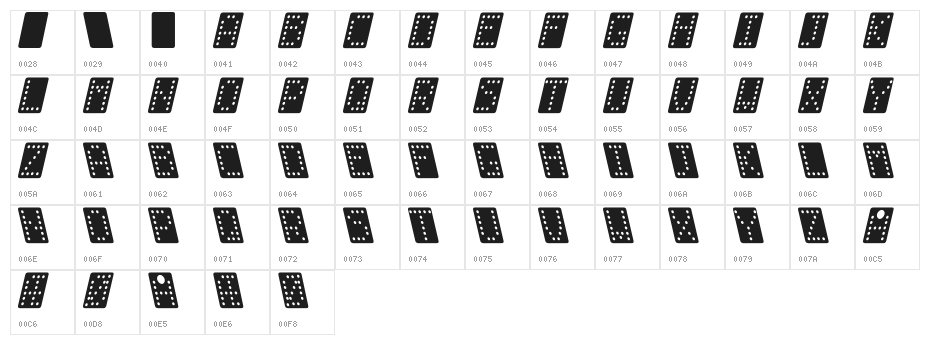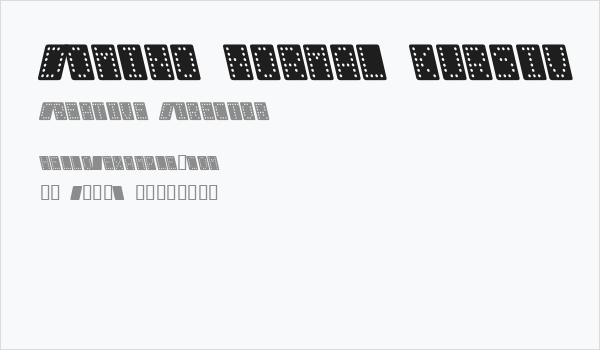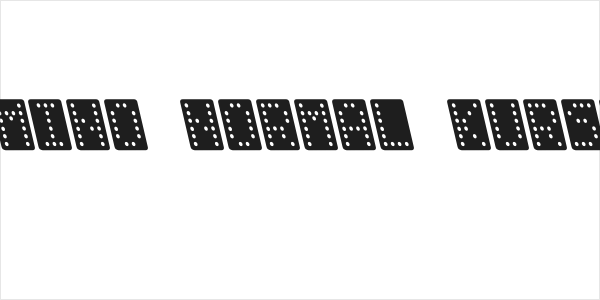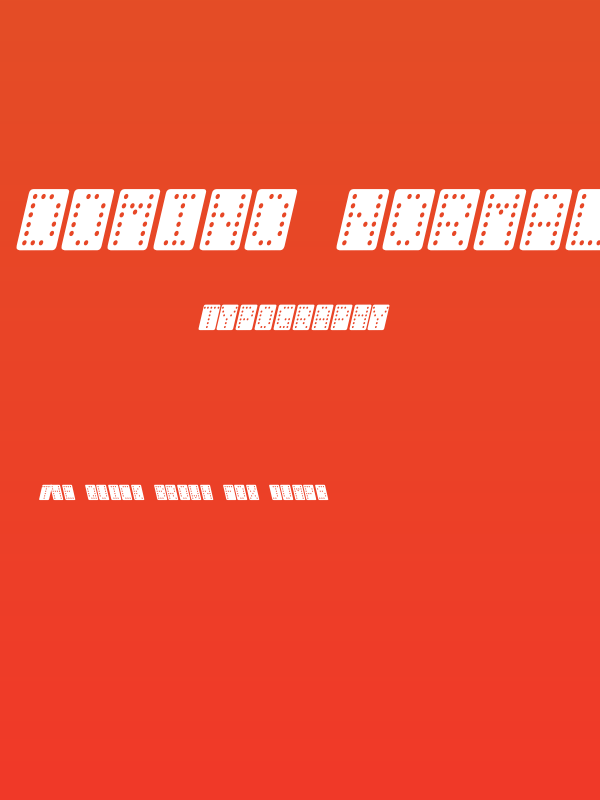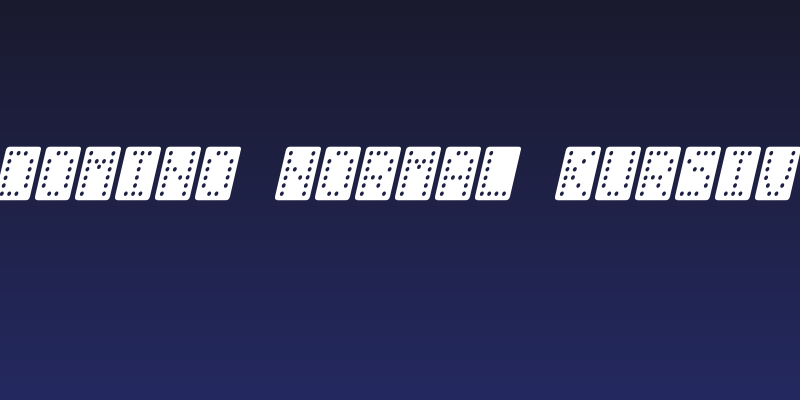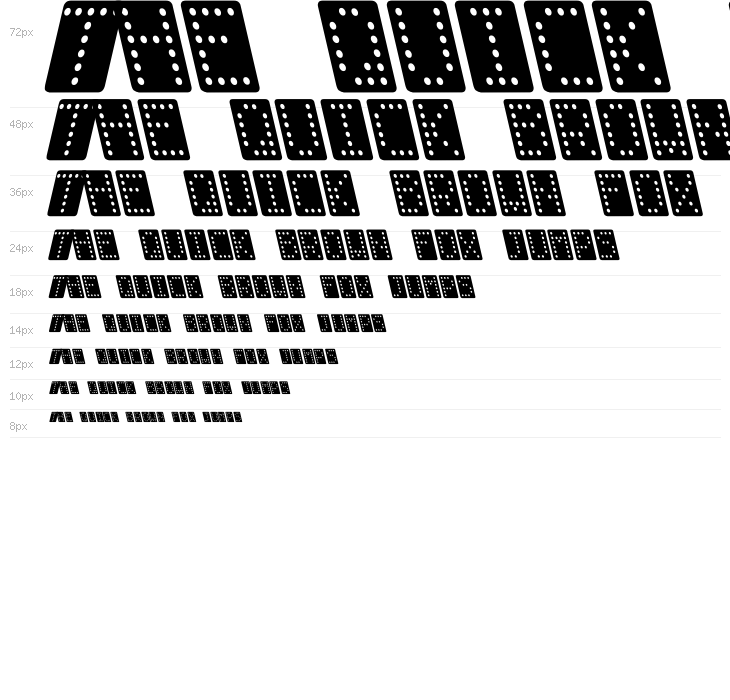
Domino normal kursiv Font
Domino normal kursiv Description
This font is a unique and playful design that mimics the appearance of domino tiles. Each character is represented as a domino piece, with dots arranged to form the letter shapes. The font has a bold and blocky style, with each letter tilted slightly to the right, giving it an italicized look. The characters are evenly spaced, maintaining a consistent and clean appearance. The design is highly decorative, making it suitable for creative and informal projects. The font's distinct style is eye-catching and can add a fun, game-like element to any design.
| Proposed Projects | Ideal for game-themed designs, children's books, playful posters, and creative branding. |